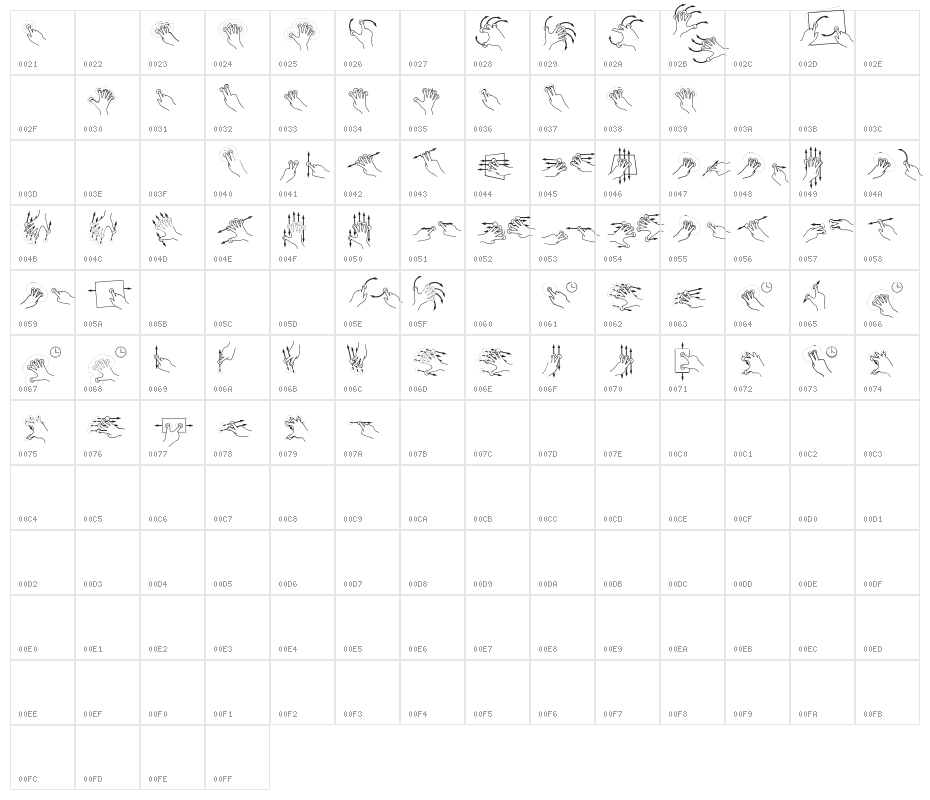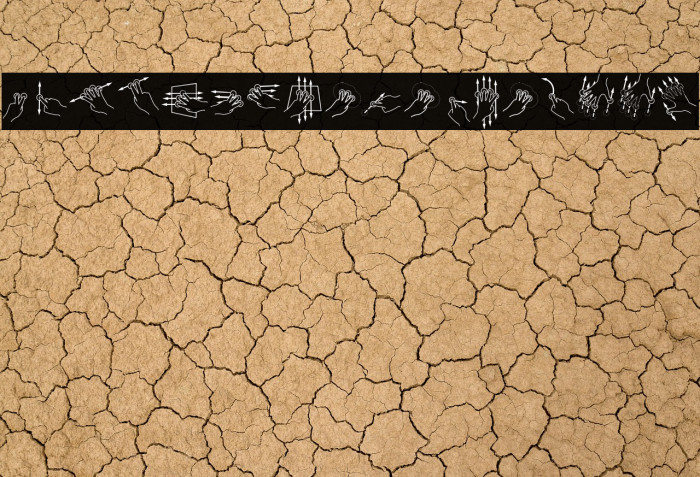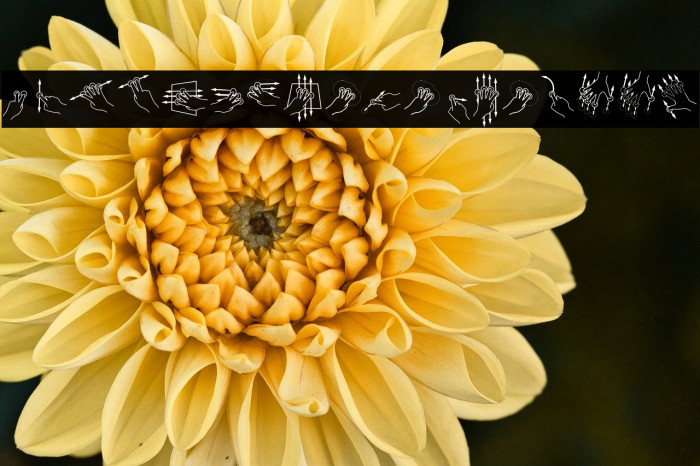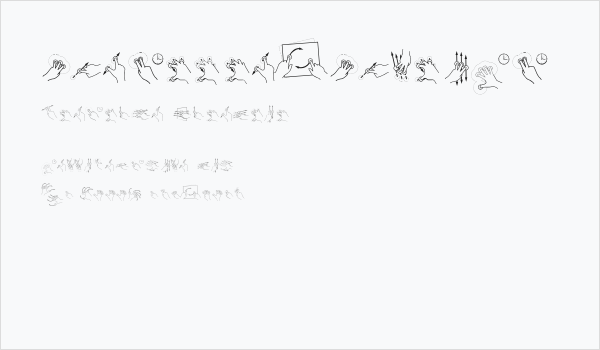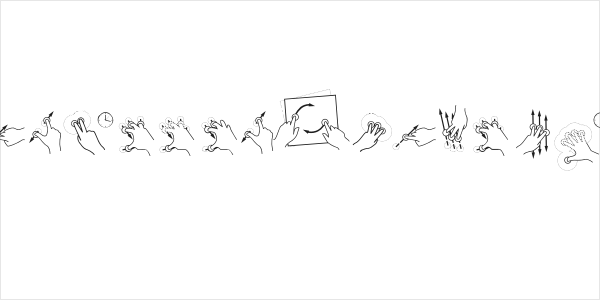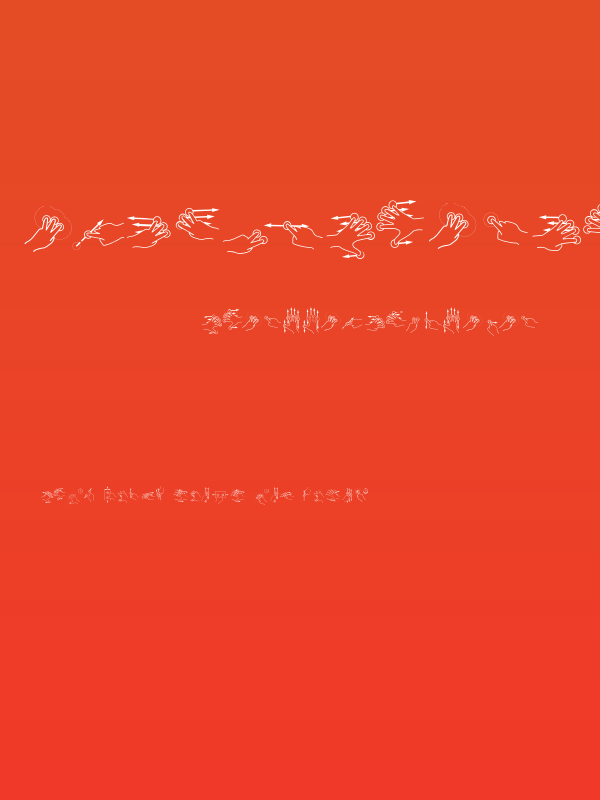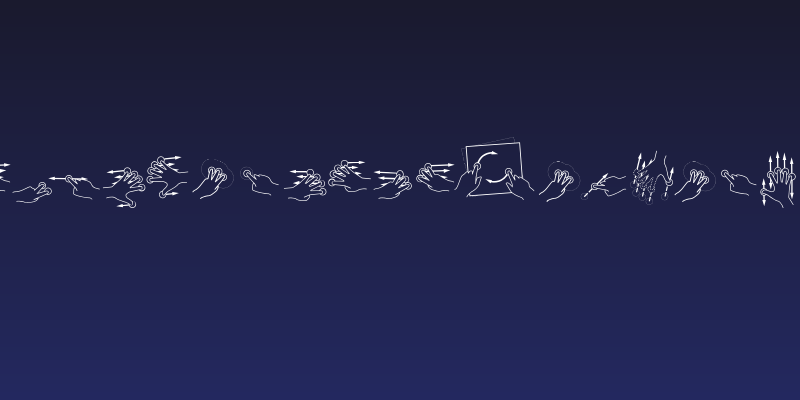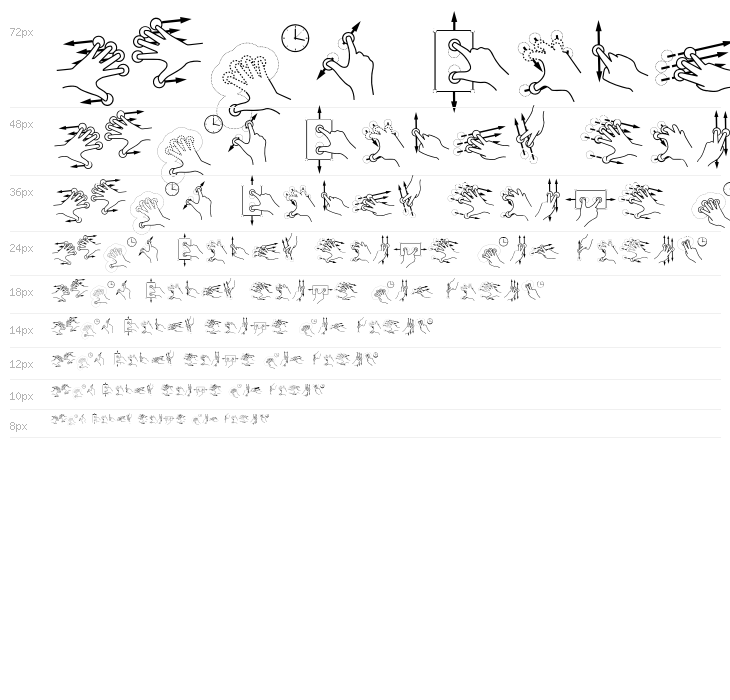
Gesture-Glyphs Font
Gesture-Glyphs Description
A collection of minimalist, line-art glyphs depicting various hand gestures and motions, with clear directional arrows and simple outlines. The style is consistent, using thin, even strokes and minimal detail to convey movement and interaction.
| Overall Style | Modern, Minimalist, Instructional |
| Use Case | Icons, Infographics, Educational materials, UI/UX design |
| Proposed Projects | User interface icons, gesture guides, instructional materials, mobile app tutorials, touch device documentation. |